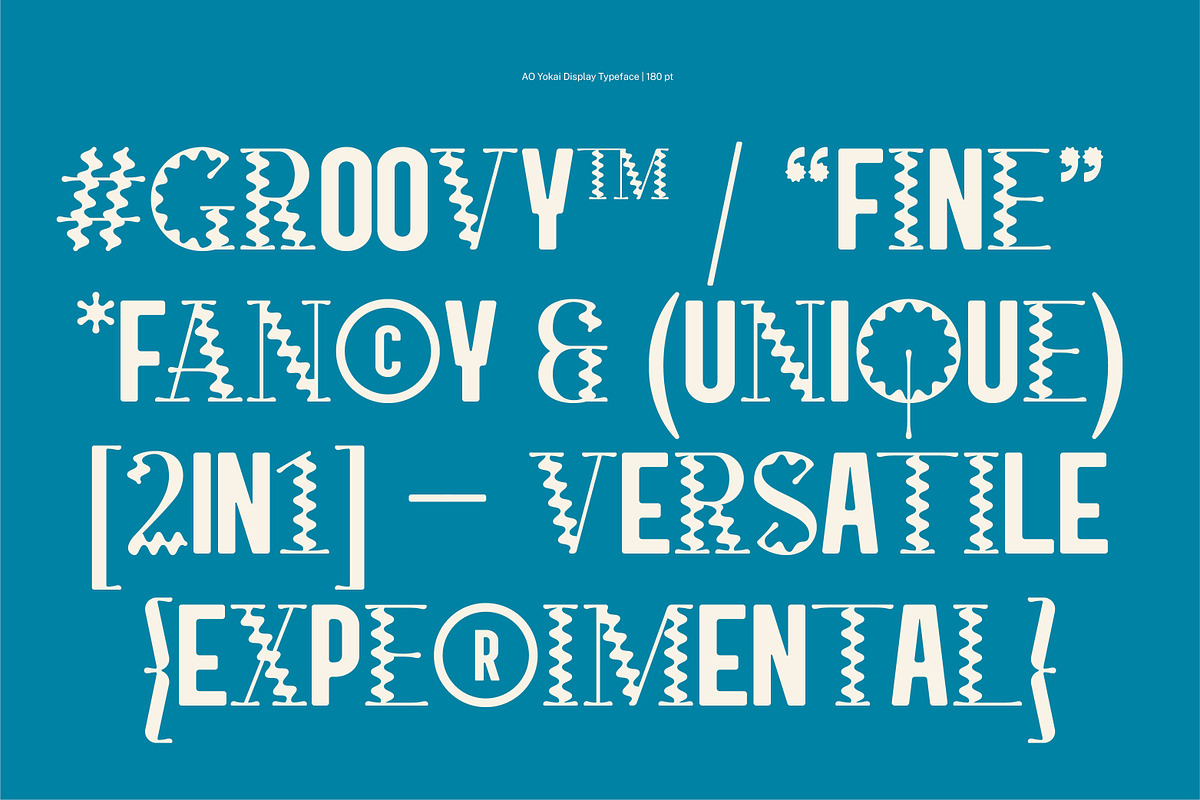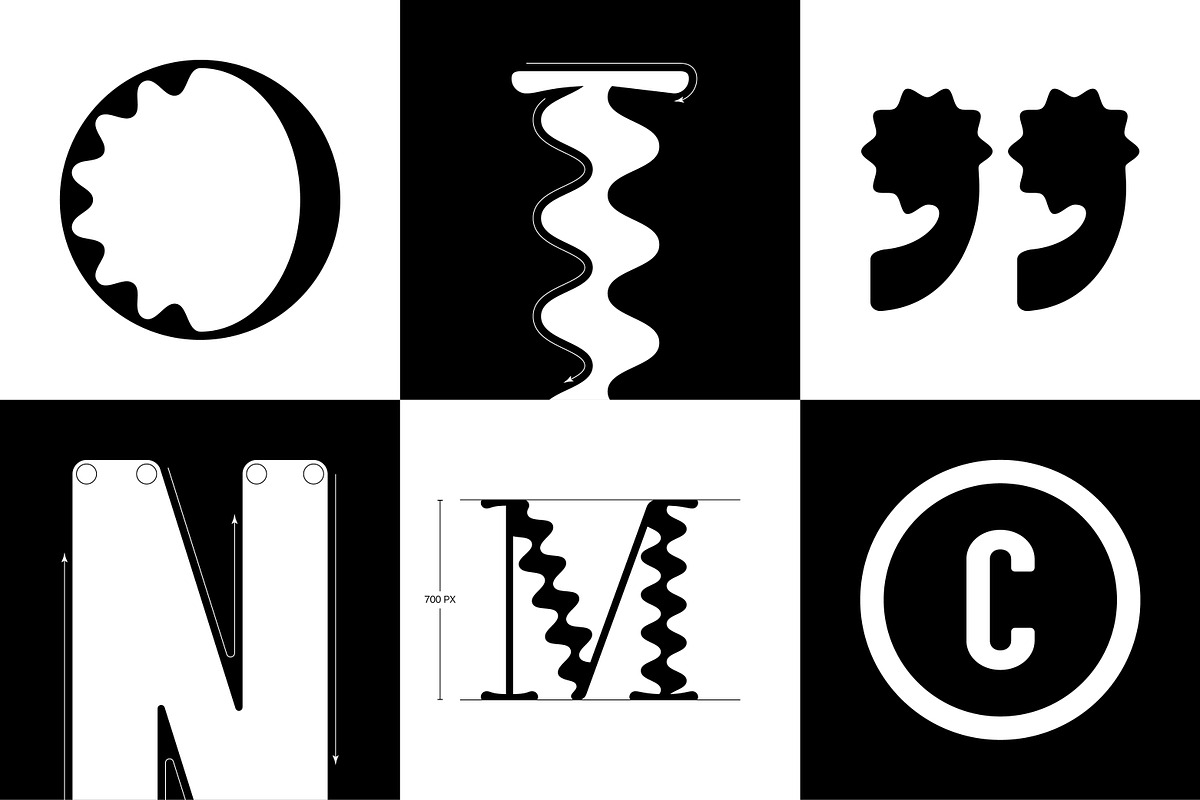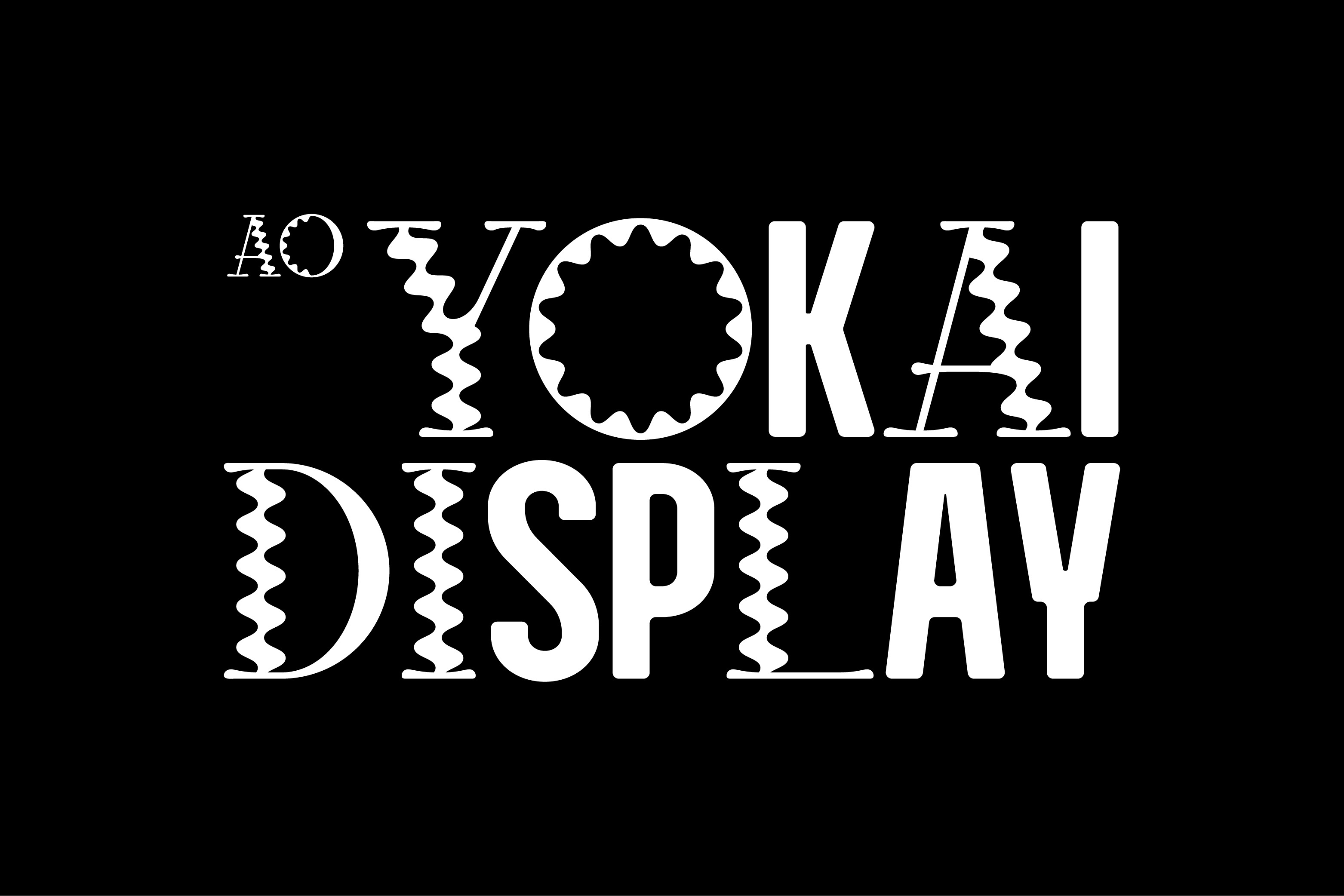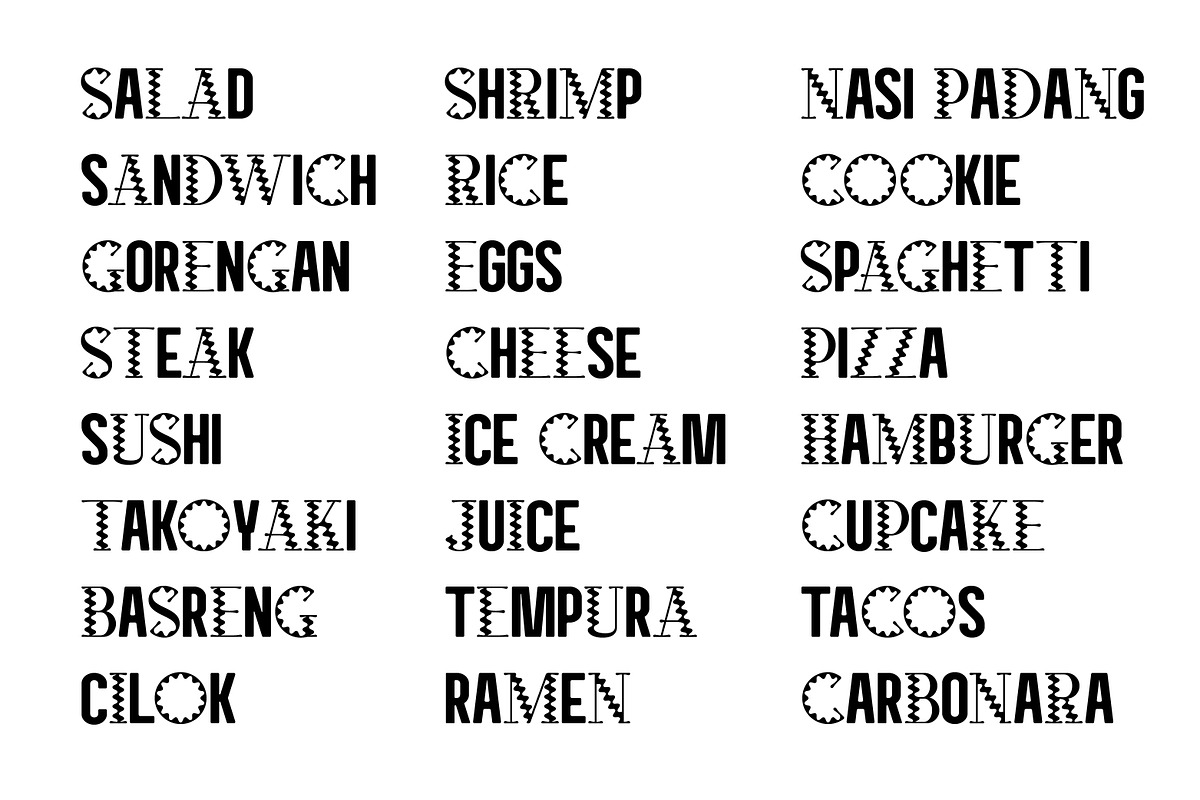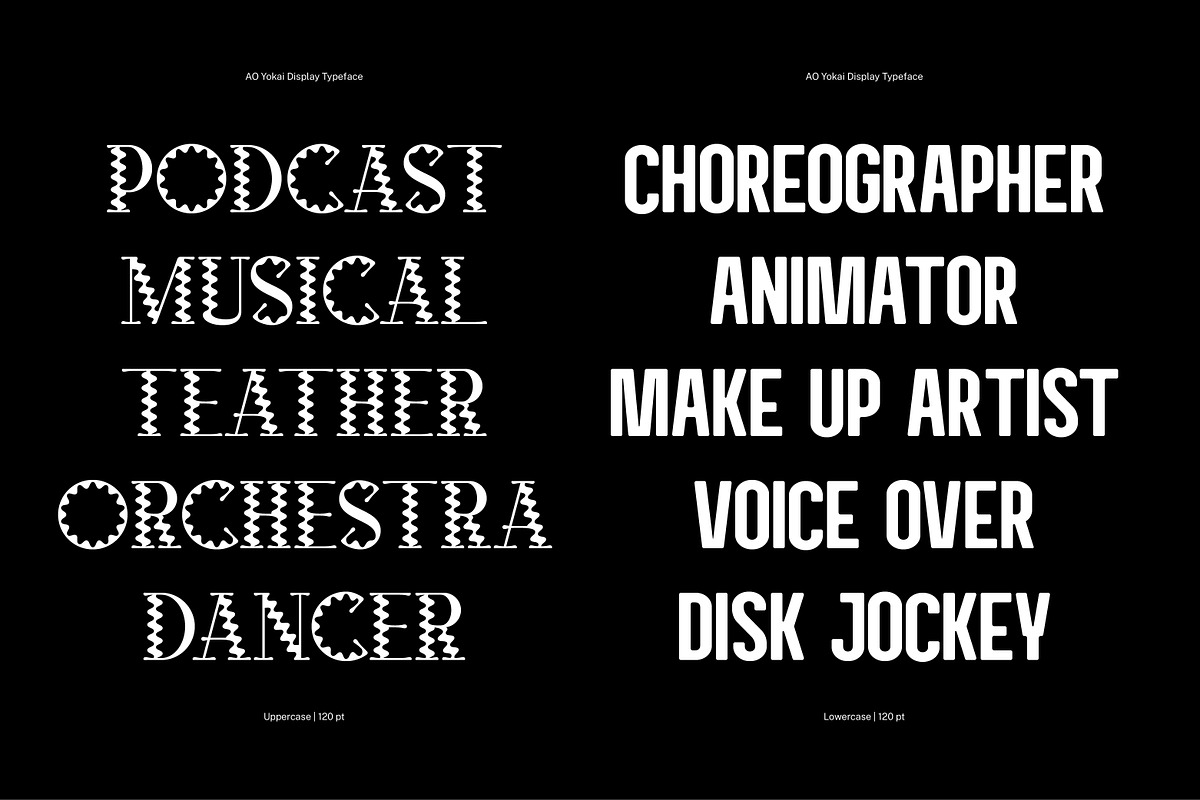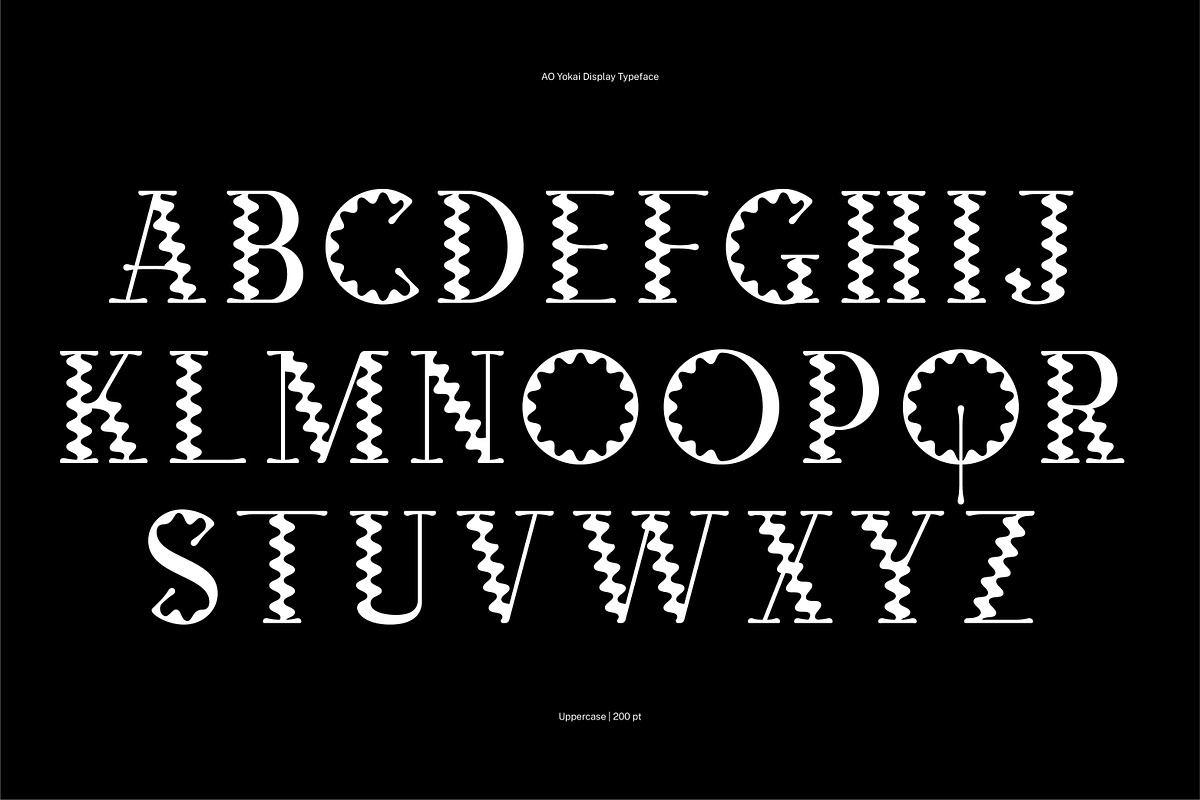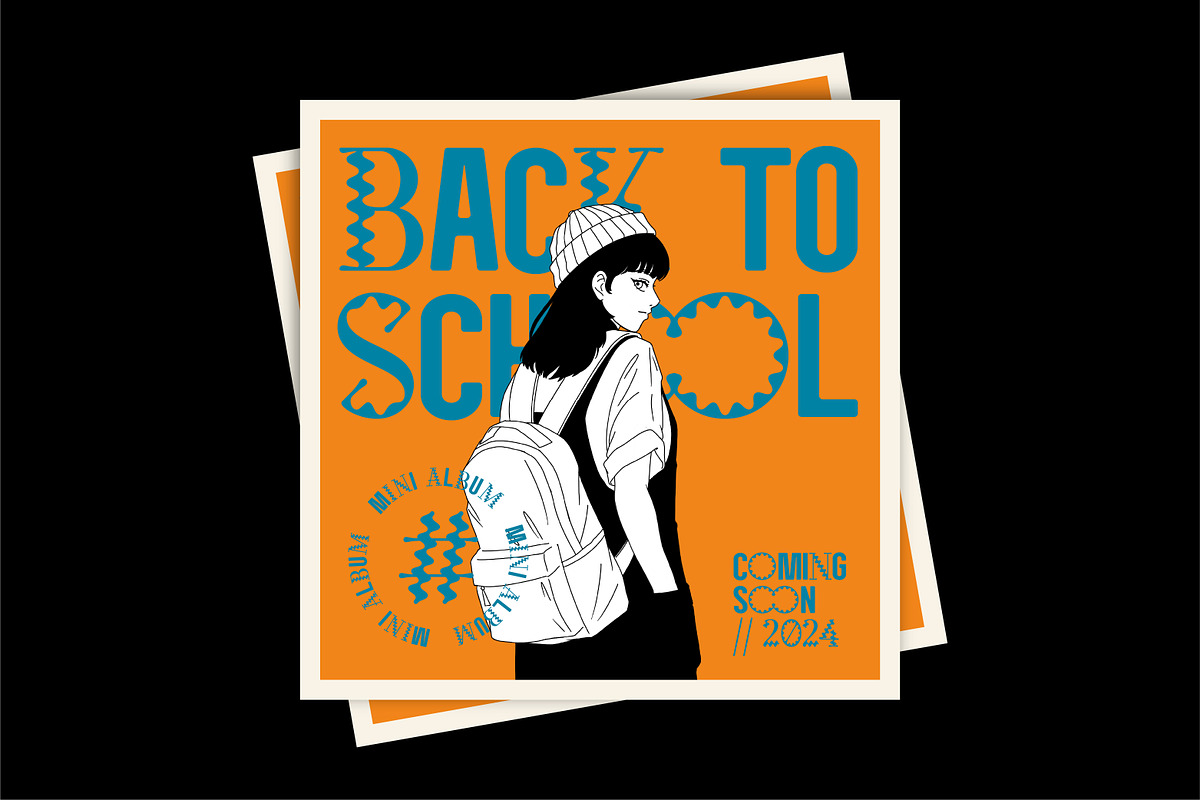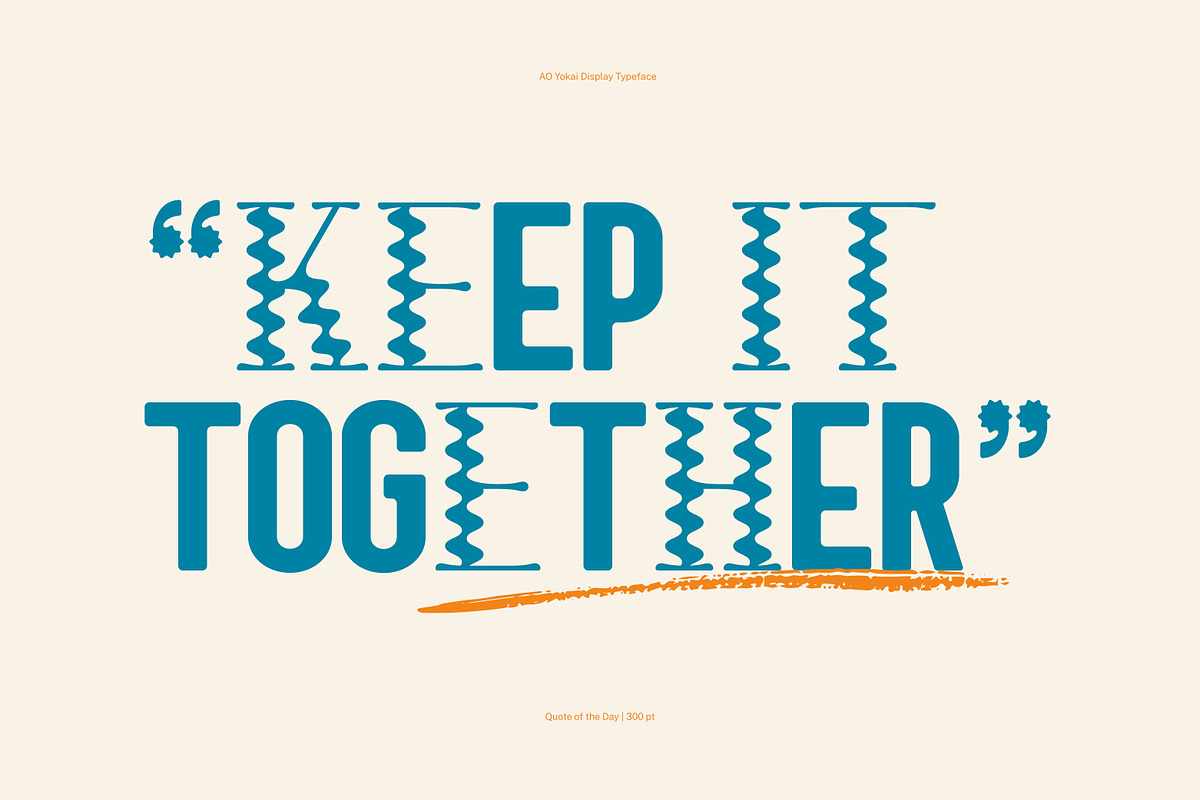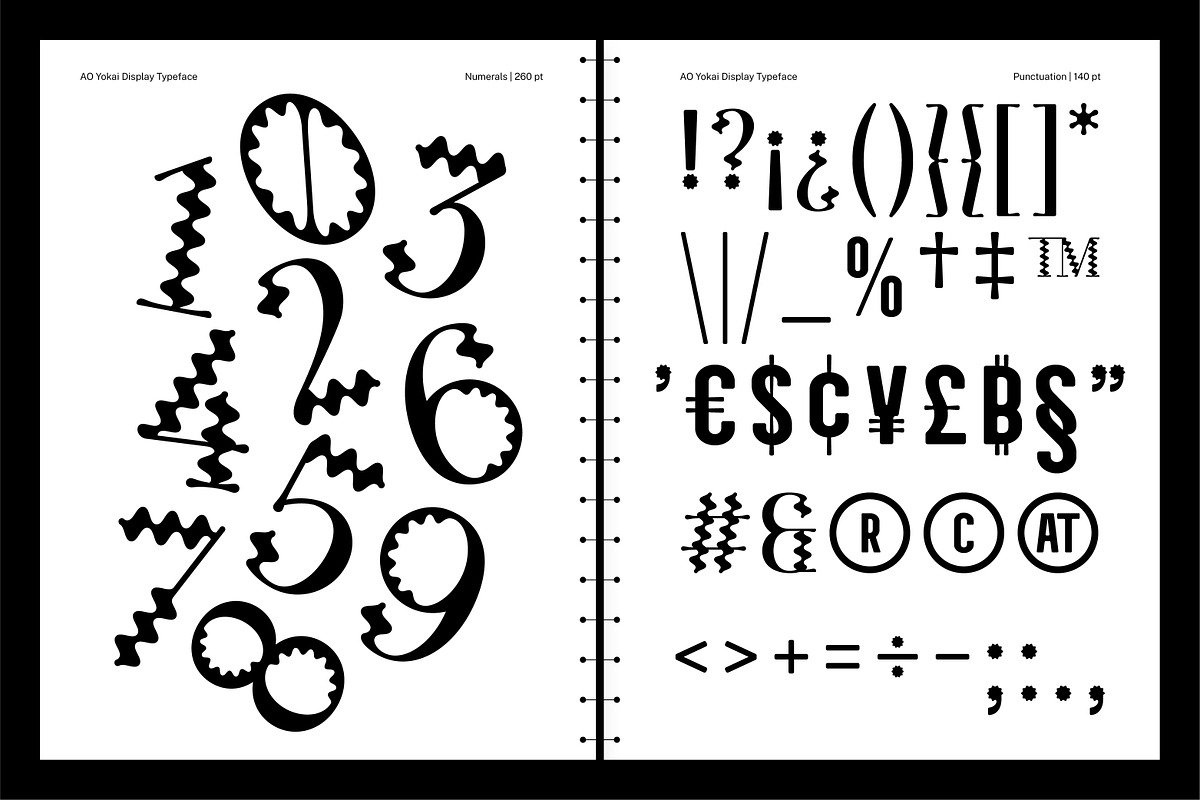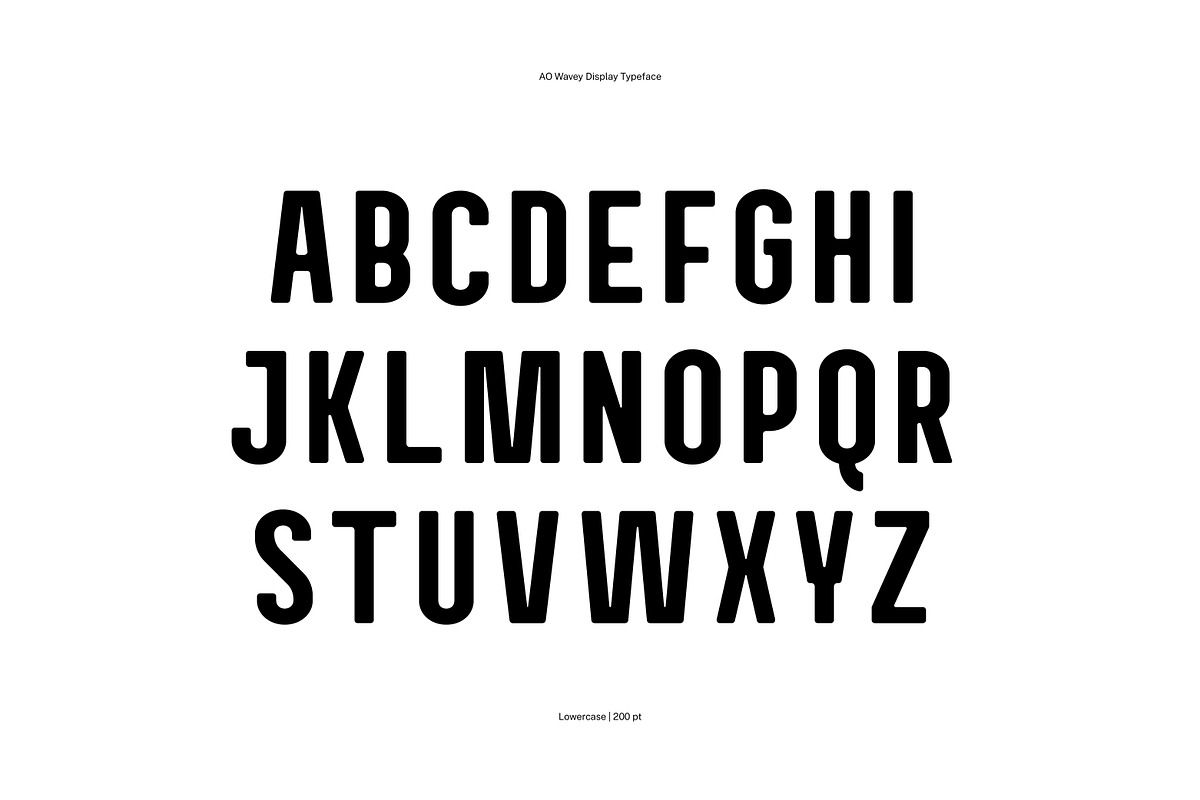
AO Yokai - Decorative Typeface
AO Yokai Display is a 2 in 1 typeface, an experimental combination of two different font styles that create a unique look for your design project needs. This entire font is capitalized and also includes ligatures, punctuation, numerals and multi-language support.